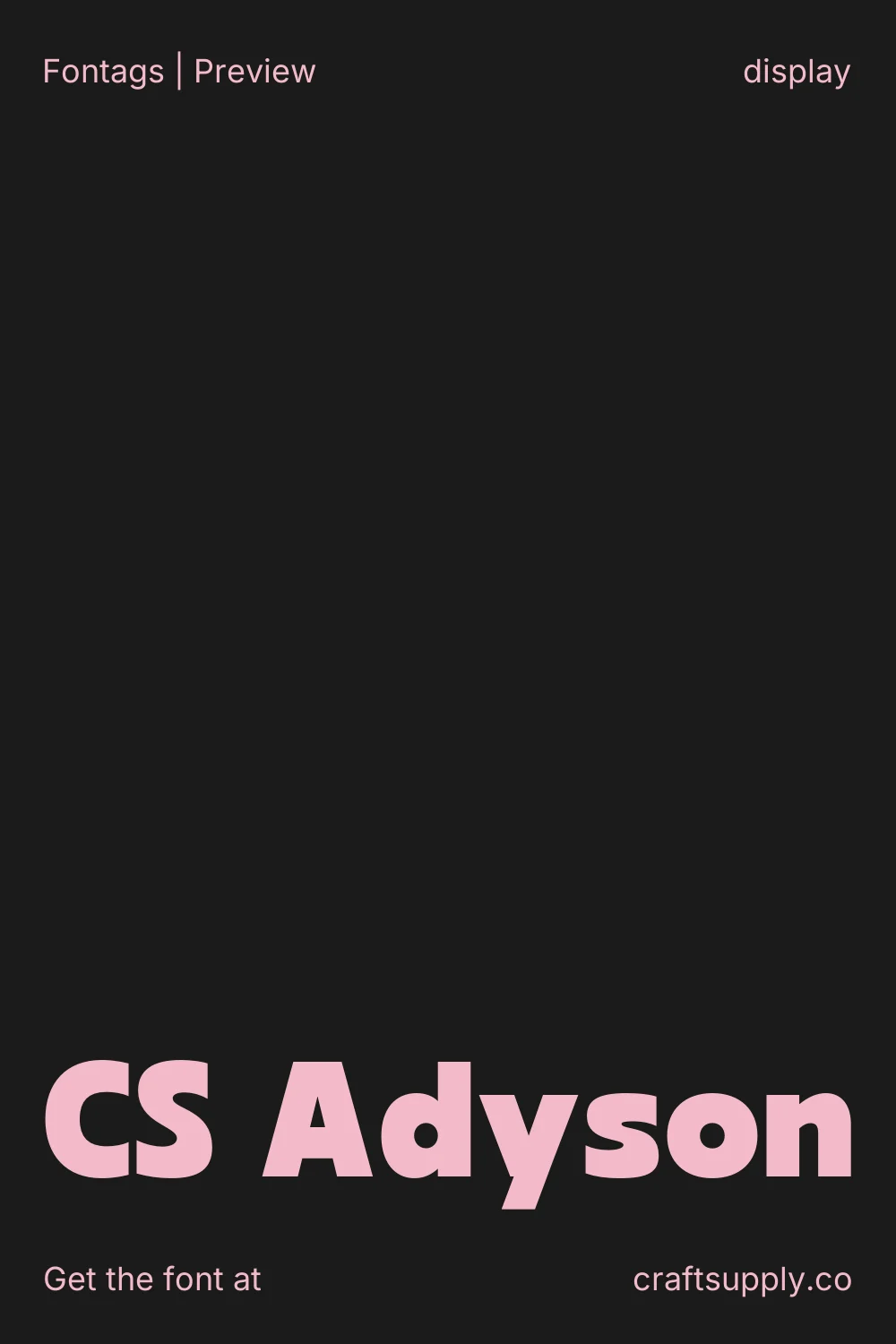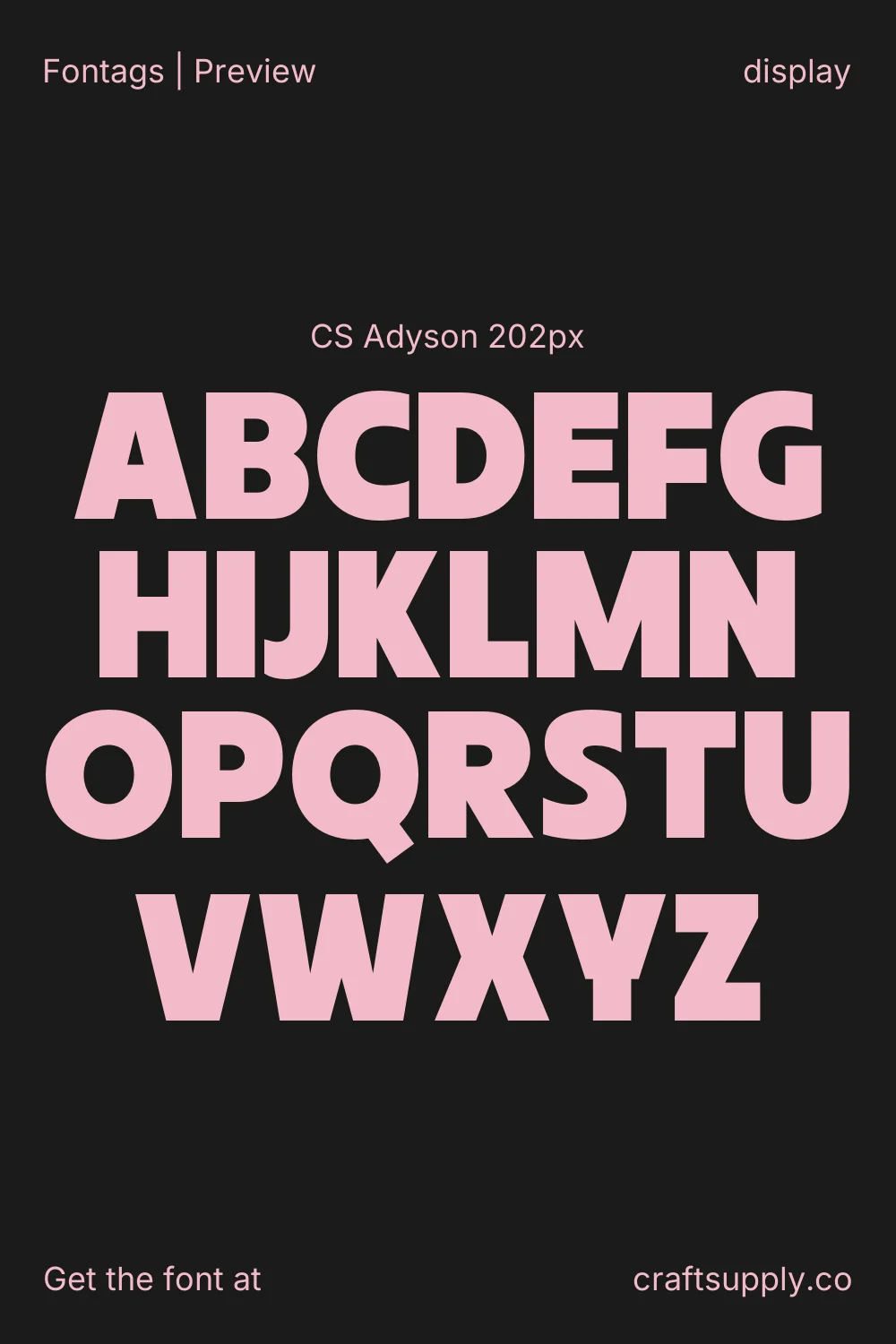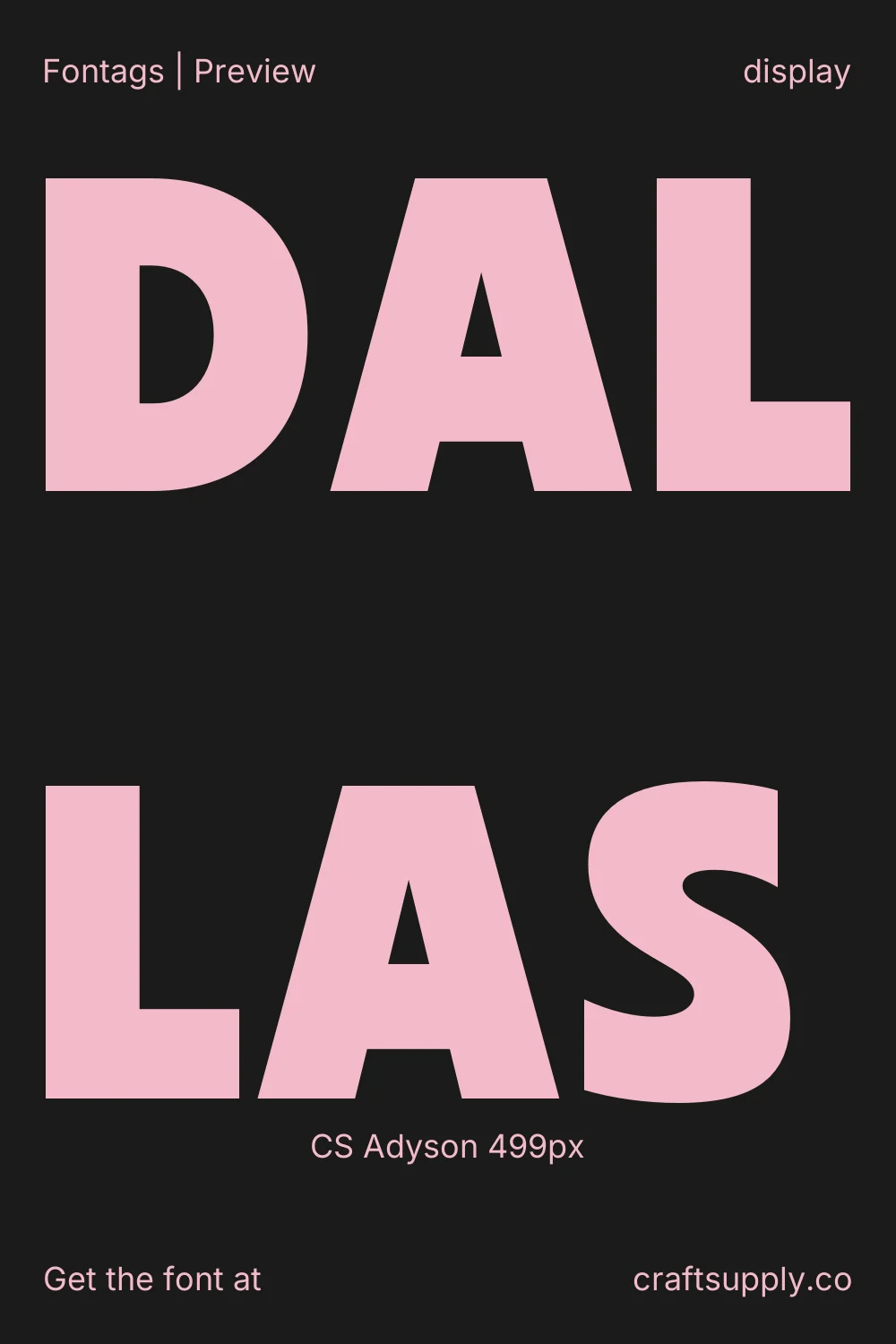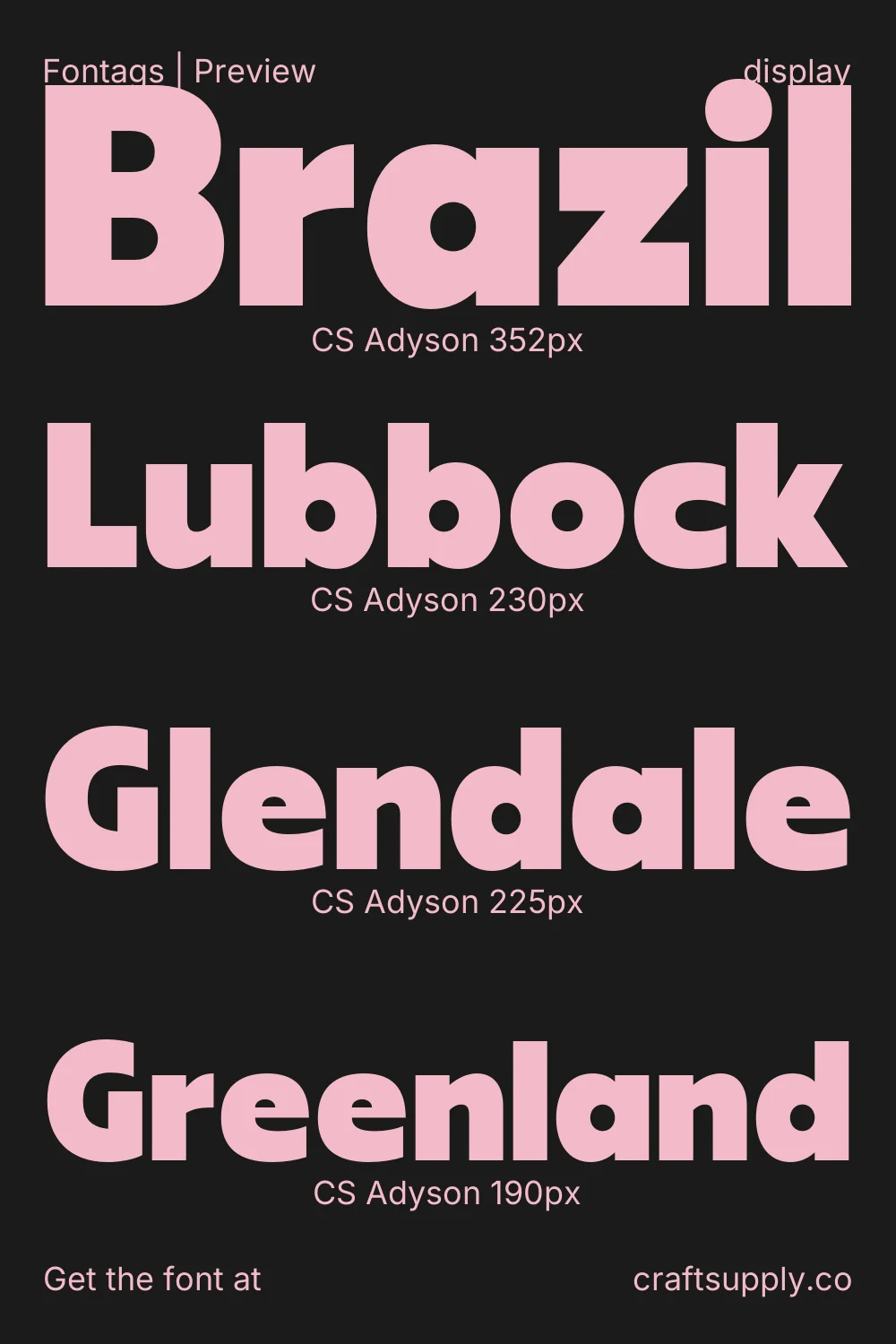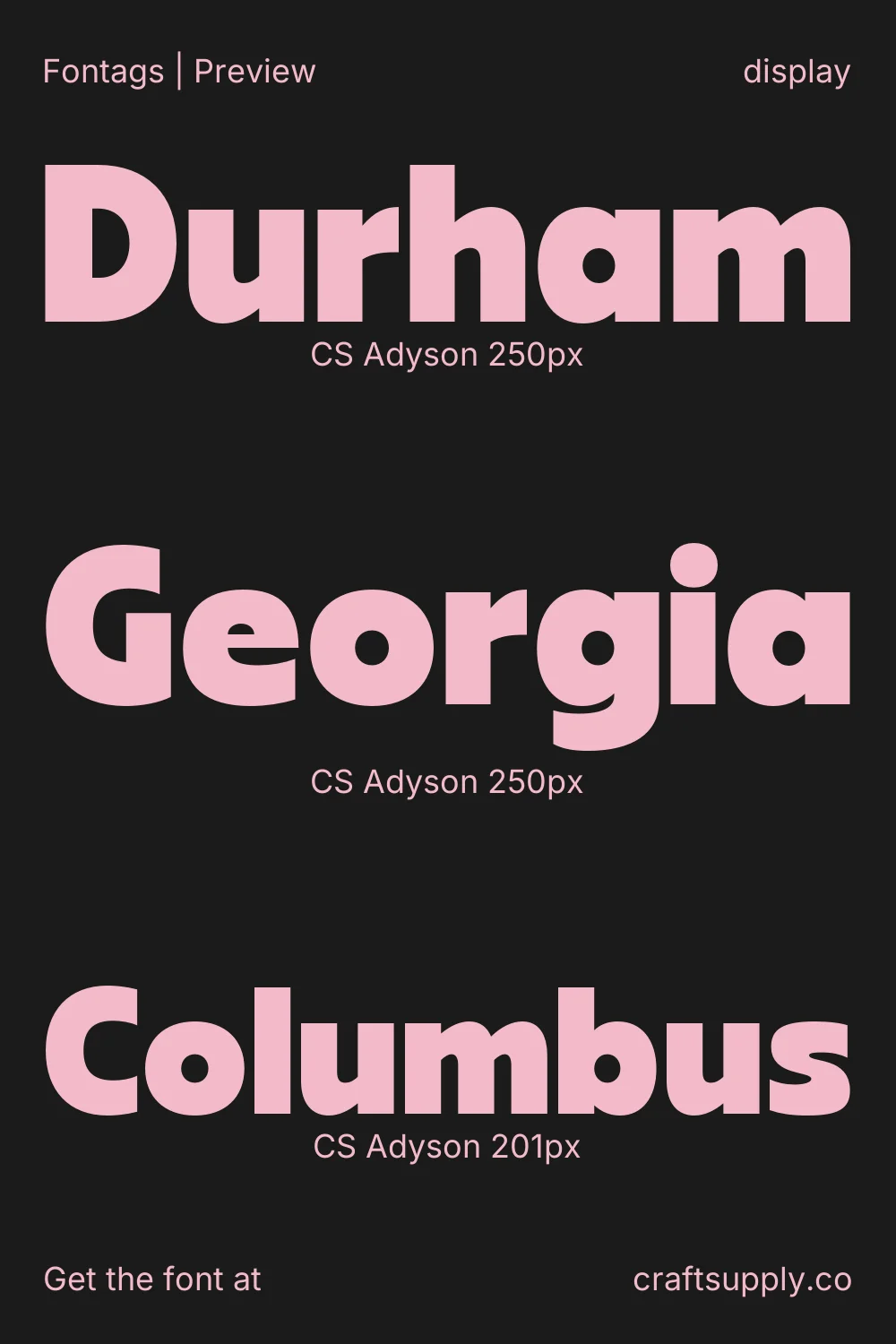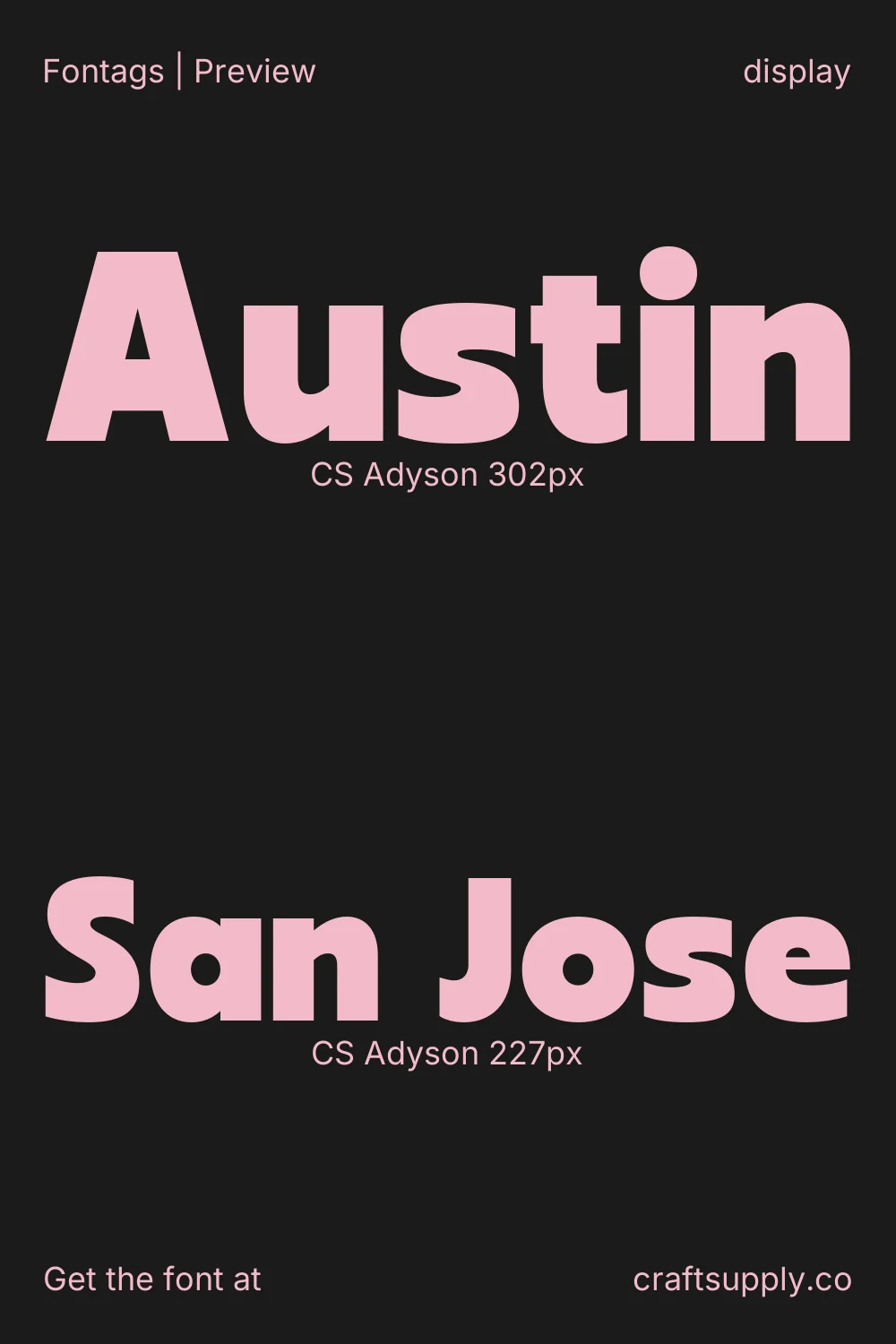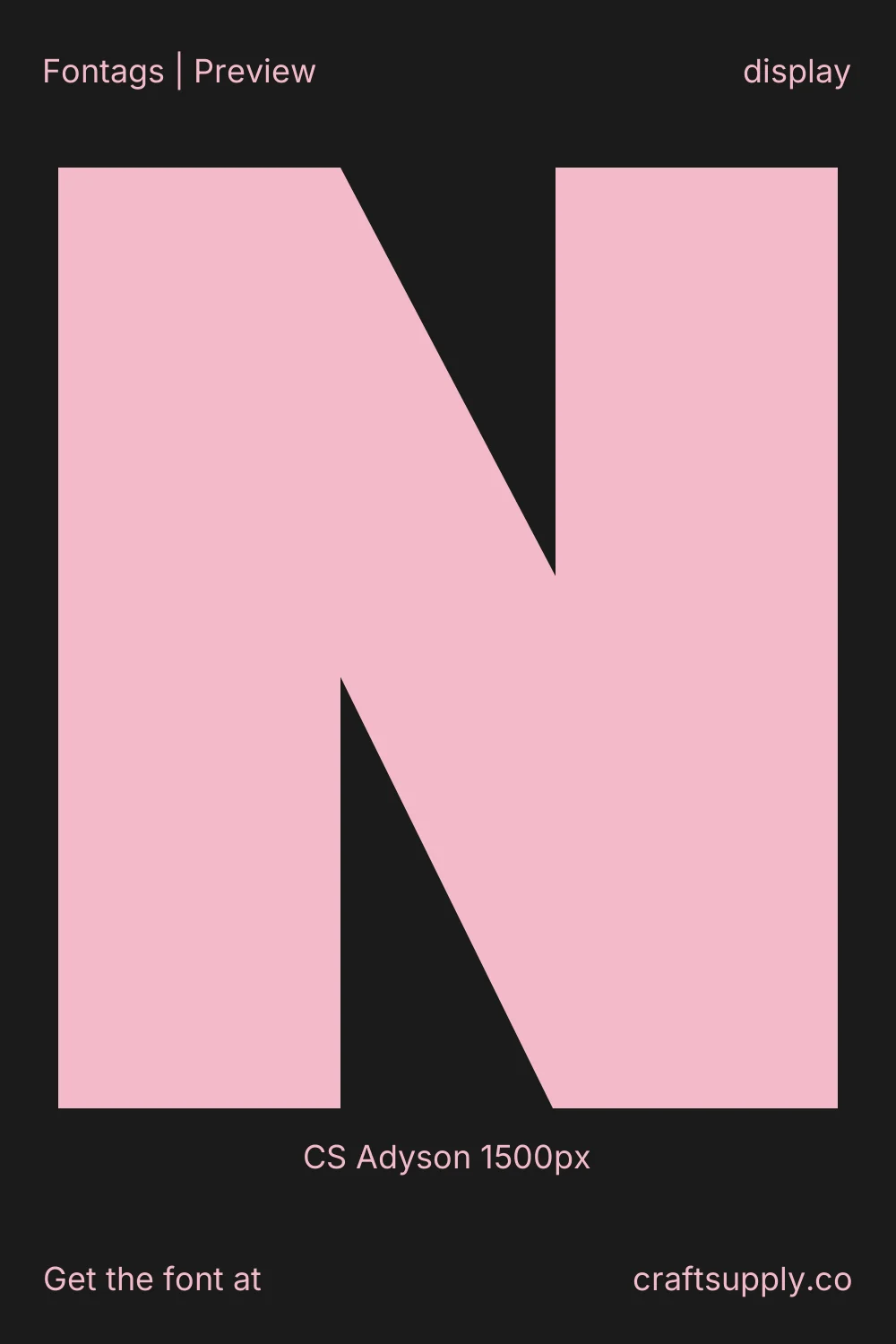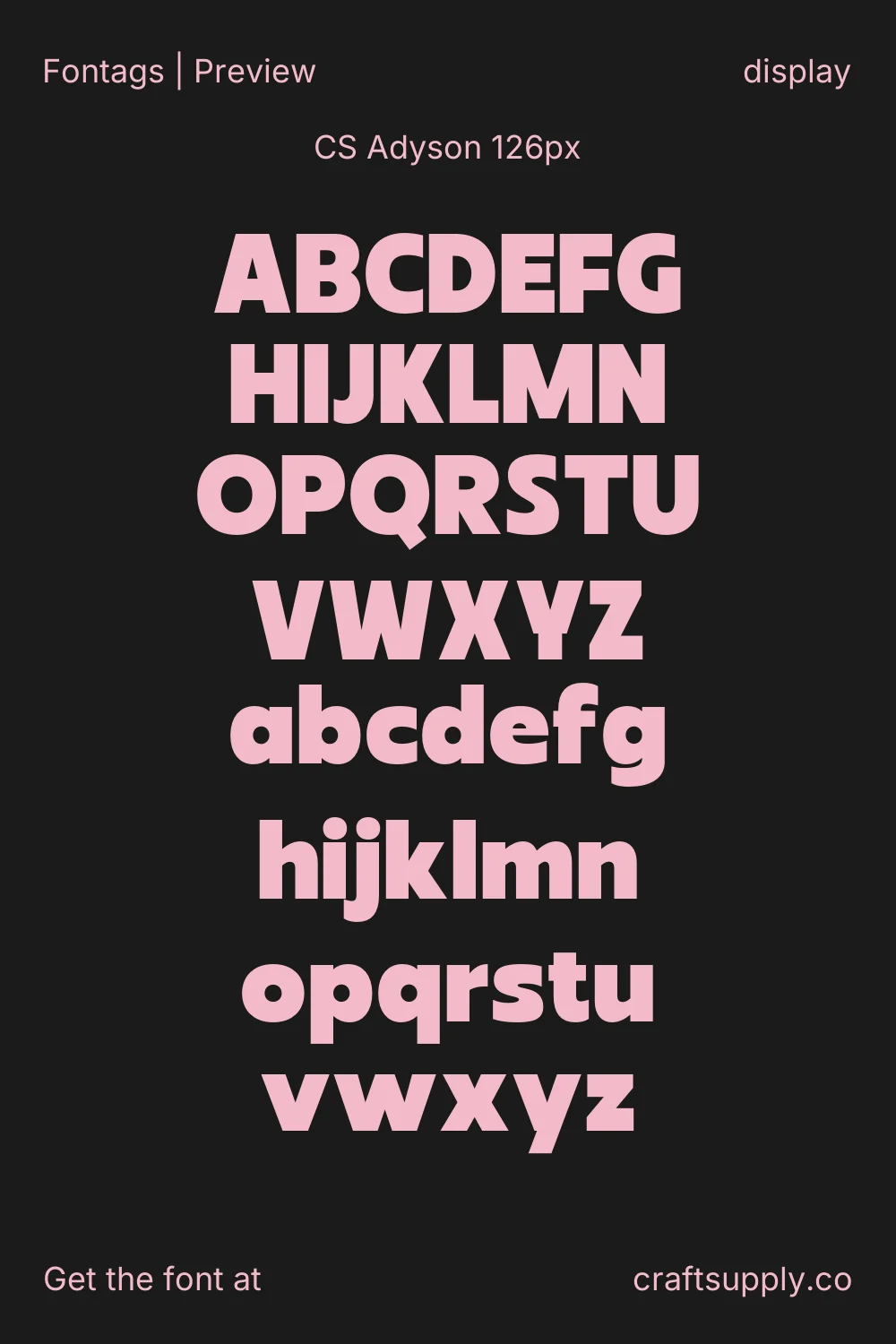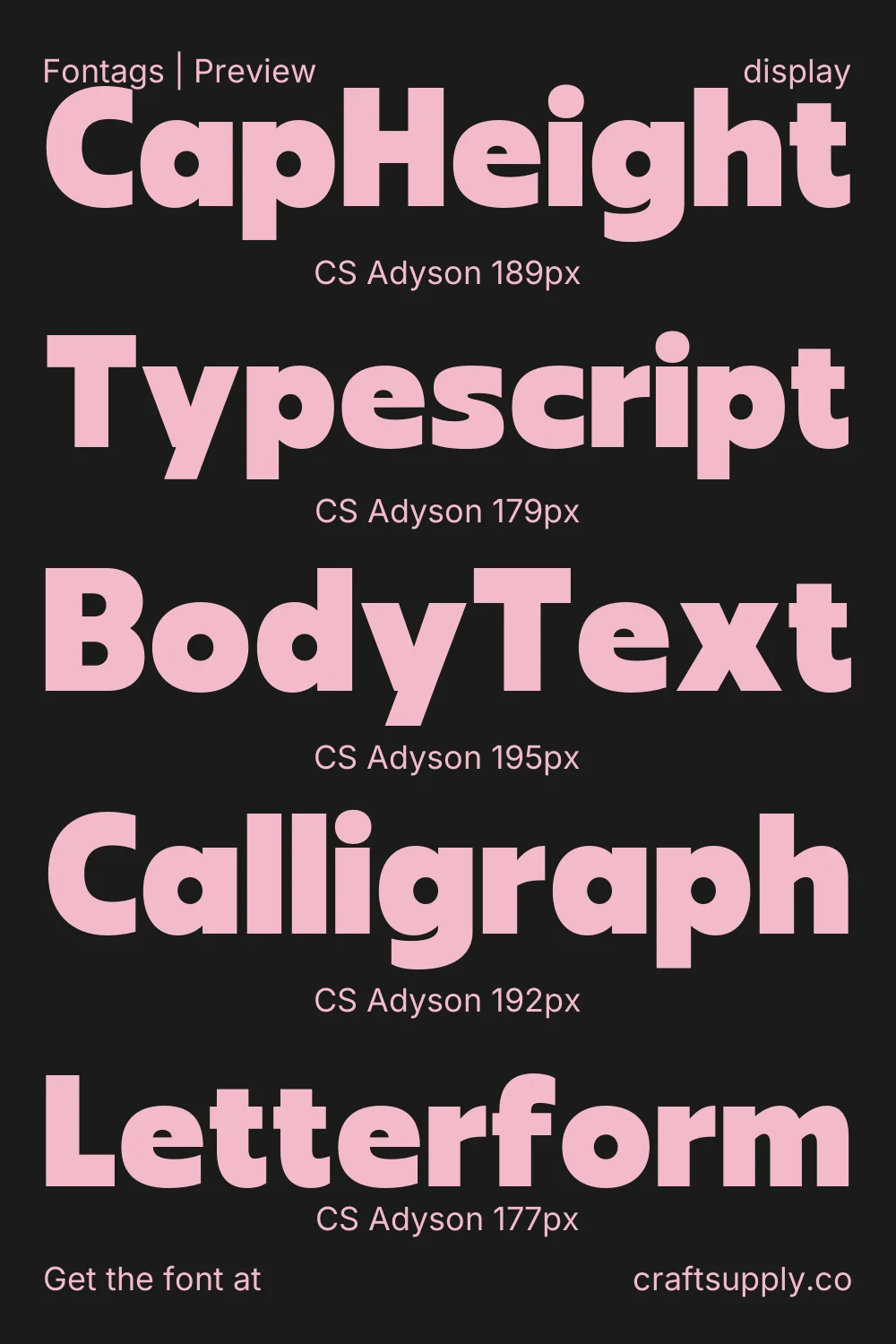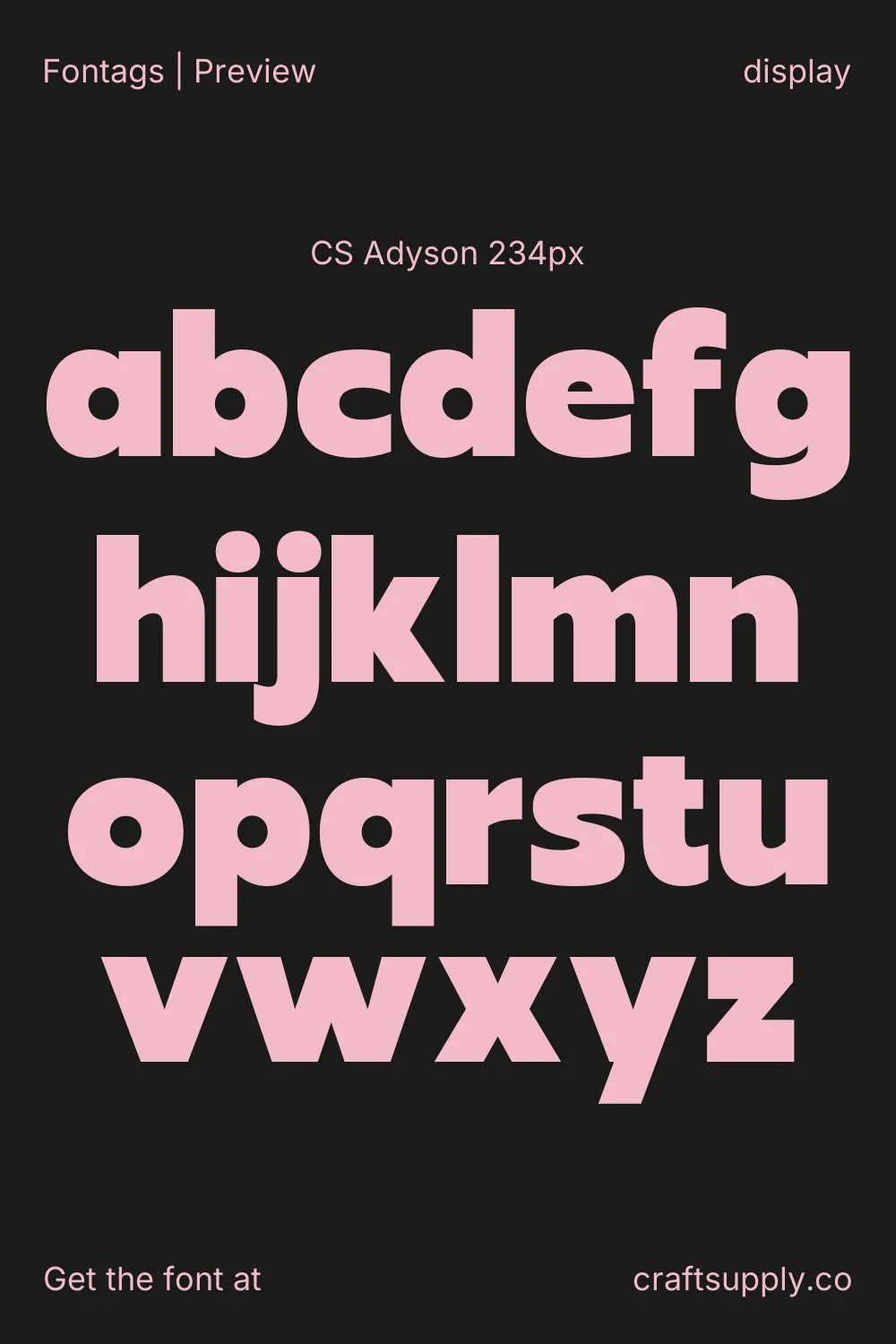
CS Adyson
CS Adyson is a modern bold sans-serif typeface that combines geometric clarity with strong visual presence. Its clean lines and solid structure deliver professional impact across corporate branding, logos, packaging, and digital interfaces. Available in Regular, Italic, and Reverse Italic styles, this minimalist font projects confidence and reliability while maintaining excellent readability in both print and screen applications.